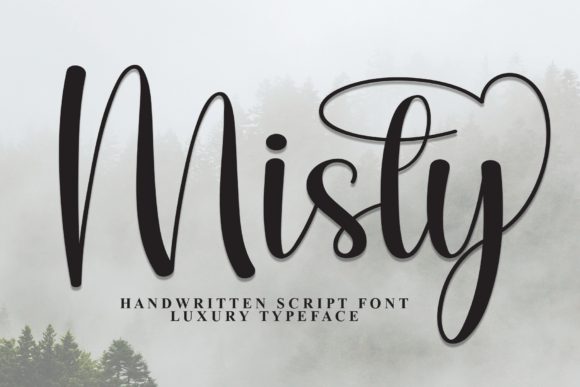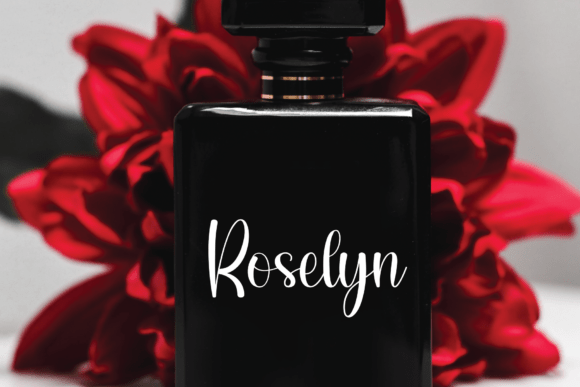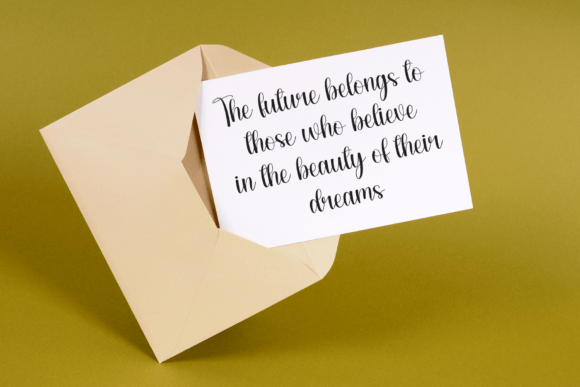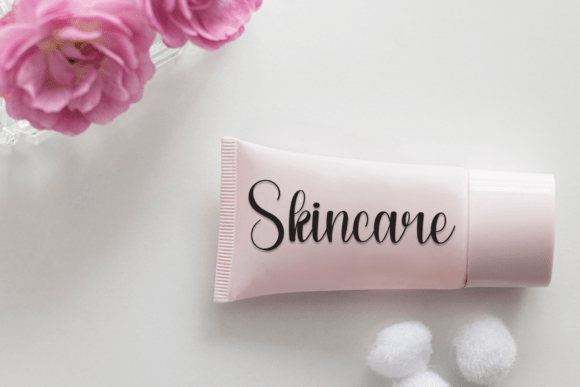
Misty Font: Elegant Script for Wedding Invitations & Branding
About the Misty Font
Welcome to the world of Misty Font, a typeface that will inspire your next great project. Meet the captivating allure of a sweet, handcrafted font that exudes a warm, friendly charm – the delightful whimsy of our handwritten display font. With a character that’s both charming and free-spirited, it is the perfect element to infuse your design projects, from beguiling wedding invitations to heart-capturing cards, with a dollop of lighthearted appeal. Experience the joy of infusing your designs with a fun, personal touch, courtesy of this splendid font.
Misty Font’s playful, handcrafted charm makes it ideal for headlines, short text blocks on invitations, branding elements like logos (especially for businesses with a handmade or artisanal focus), and short-form social media posts. It’s less suitable for body text or long paragraphs due to its decorative nature, and its readability suffers at smaller sizes. Avoid using it in UI contexts requiring high legibility.
Pairing Misty Font effectively requires considering its whimsical nature. A clean sans-serif like Lato or Open Sans would provide a strong contrast and enhance readability in supporting text. Alternatively, a more delicate serif font such as Playfair Display could create a sophisticated, slightly vintage feel. For a more playful approach, a rounded geometric sans-serif might work well.
Misty Font projects a lighthearted and friendly personality, perfect for brands emphasizing approachability and warmth. Its handcrafted quality adds a touch of authenticity and personality, making it unsuitable for projects demanding strict professionalism or a modern minimalist aesthetic.
Misty Font Usage Examples
Misty Font Example